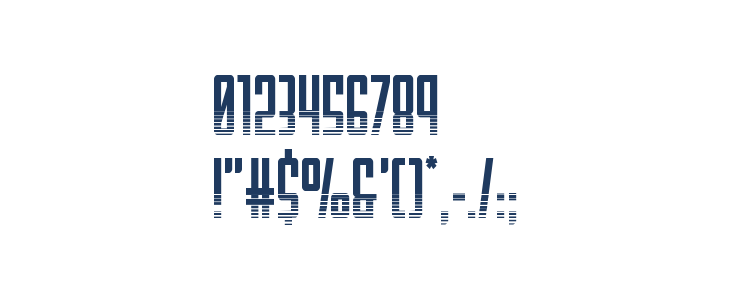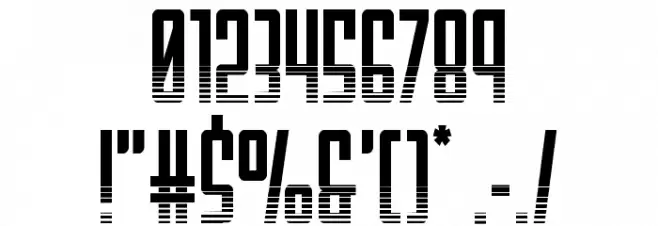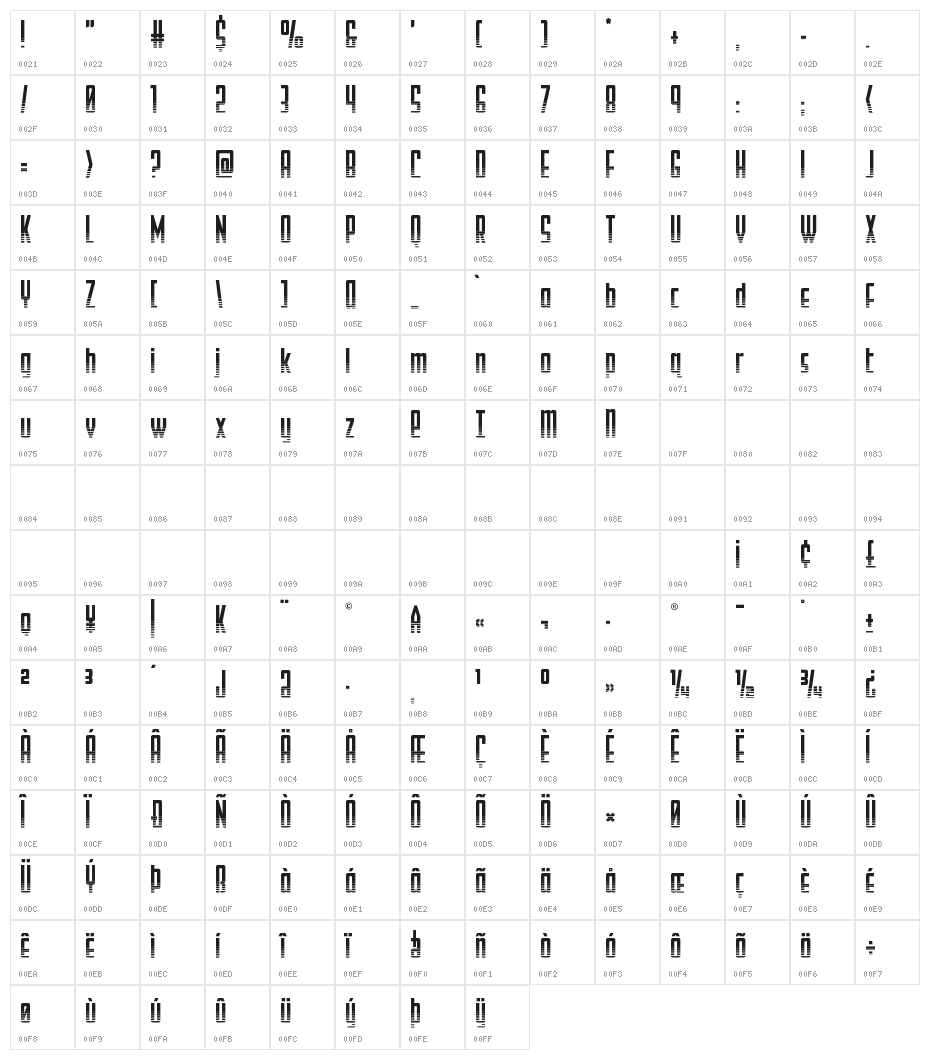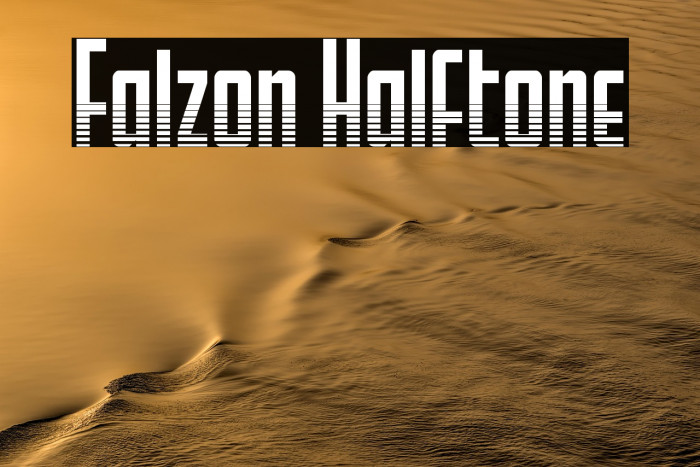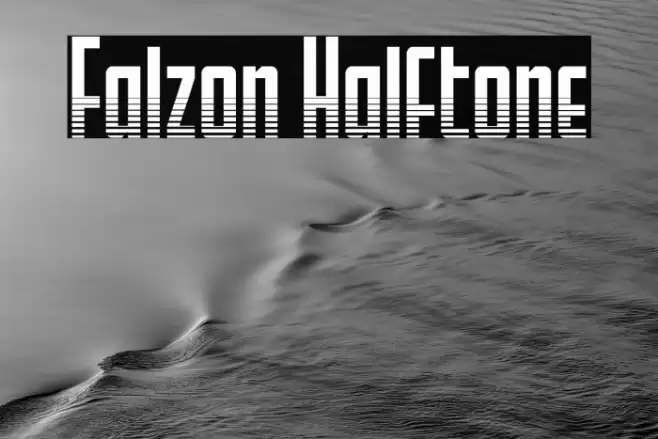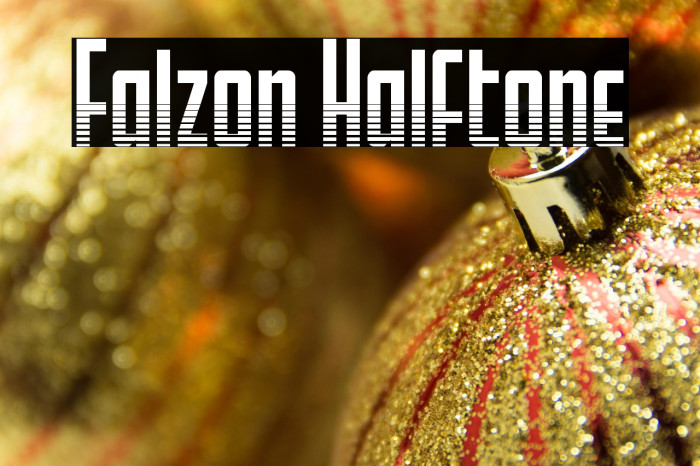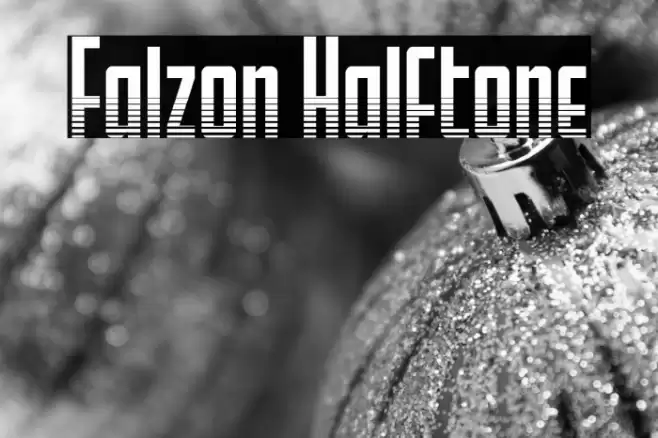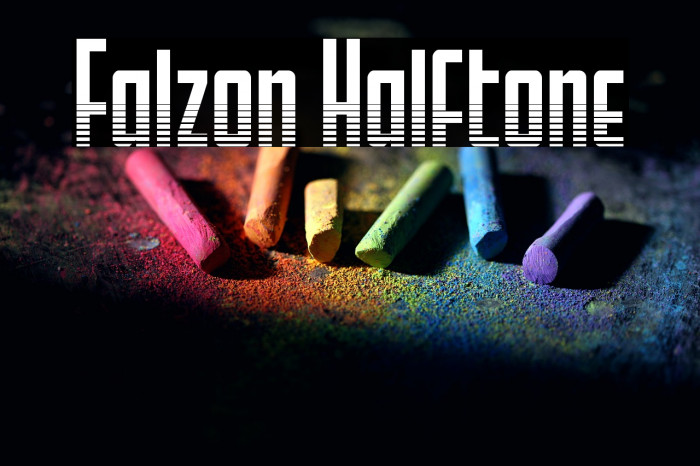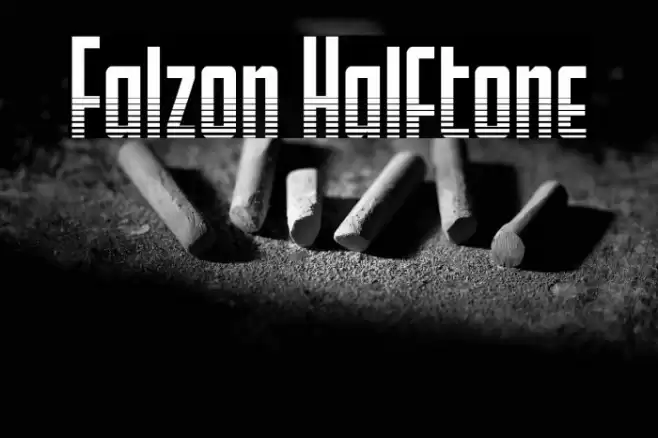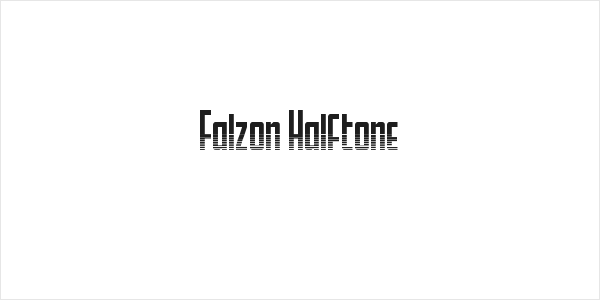
Falzon Halftone Font
Falzon Halftone Description
This font features a unique halftone effect, where each character is composed of horizontal lines that create a gradient-like appearance. The uppercase and lowercase letters maintain a consistent width, giving the font a monospaced feel, though it is not strictly monospaced. The characters are bold and have a modern, digital aesthetic, reminiscent of early computer graphics or retro video games. The numbers and special characters follow the same design principles, ensuring uniformity across all glyphs. The font's distinct style makes it stand out, with a strong visual impact that is both eye-catching and memorable.